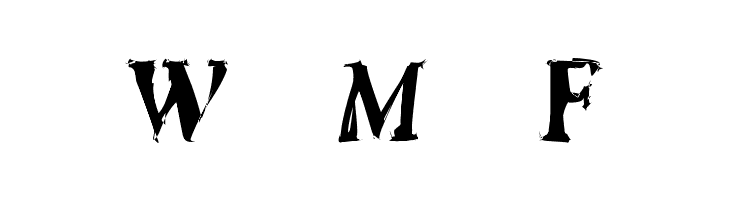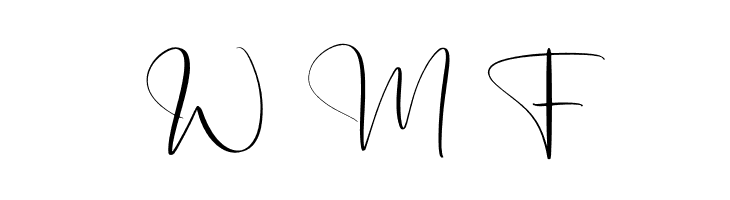
A modern, italic font with bold, slightly condensed characters and medium contrast.
A bold, geometric typeface with a modern and uniform appearance.
A bold, italic font with a dynamic and modern style.
A bold, futuristic font with a geometric and dynamic style.
A bold, extended italic font with a modern and dynamic style.
A bold, modern italic font with a dynamic and sleek design.
A bold, outlined, modern geometric font with consistent stroke thickness.
A modern, italicized outline font with bold, dynamic characters.
A pixelated, retro-style font with a blocky, digital appearance.
A playful, handwritten font with a modern and artistic flair.
A decorative font using semaphore flag signals for each character.
A dynamic and expressive handwritten font with fluid, interconnected strokes.
Decorative handwritten script font.
A bold, distressed font with a grunge-like, hand-drawn appearance.
A bold, playful handwritten font with rounded edges.
A collection of decorative ornaments with intricate, swirling patterns.
Ornamental dingbat font with diverse decorative symbols.
A diverse collection of ornamental and decorative dingbats.
Ornamental, flourish-based decorative elements with a vintage feel.
Ornamental vector-style flourishes and decorative motifs.
Ornamental dingbat set with floral and geometric motifs.
Elaborate ornamental dingbats with vintage flair.
A decorative dingbat set with floral and ornamental motifs.
Ornamental and flourish-based decorative glyph set.
A collection of intricate and elegant ornamental designs with vintage flair.
A diverse set of intricate ornamental designs with floral and geometric motifs.